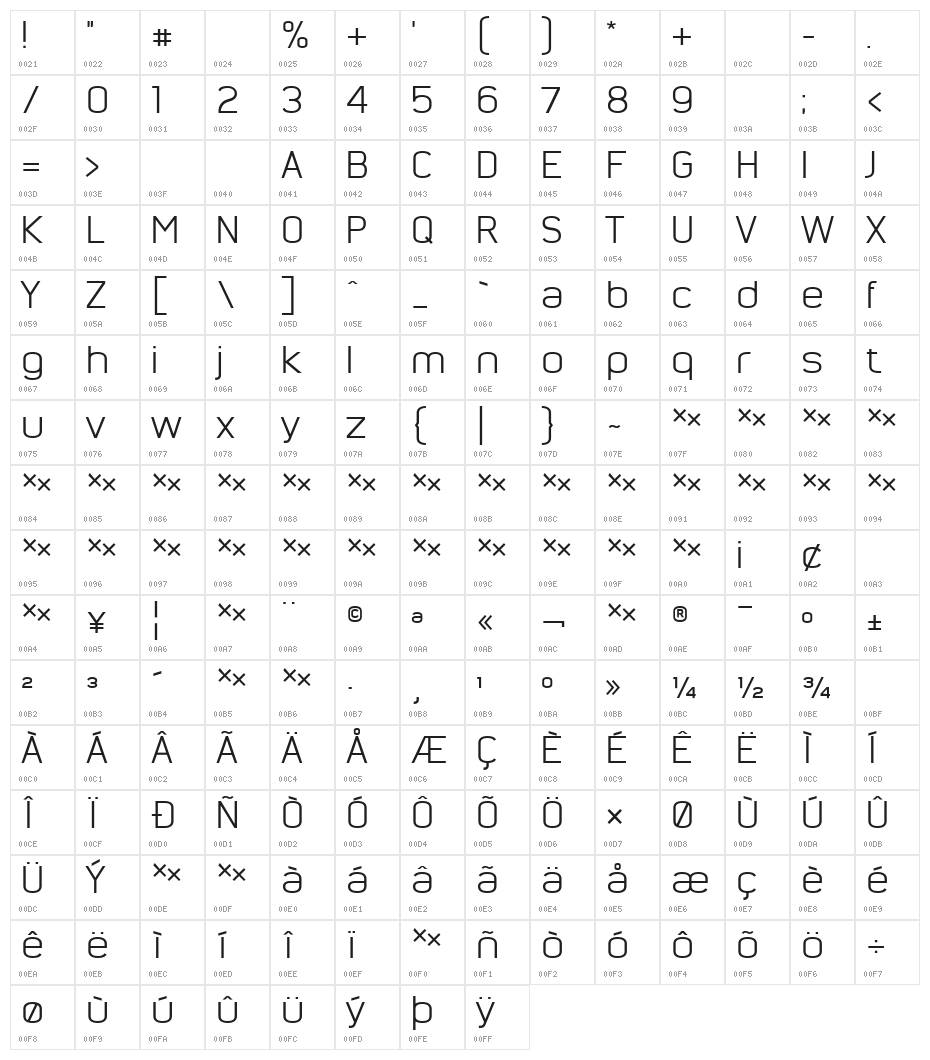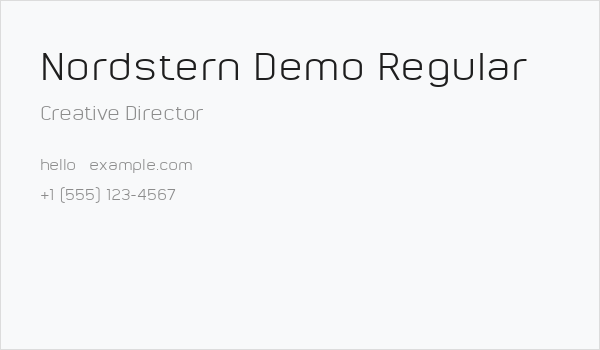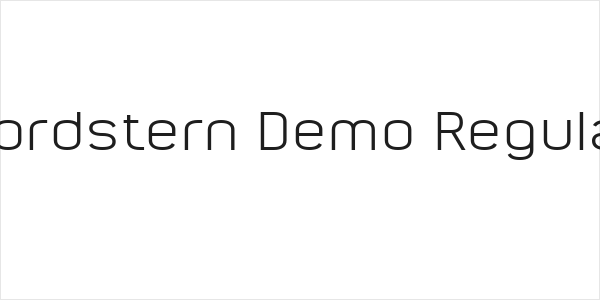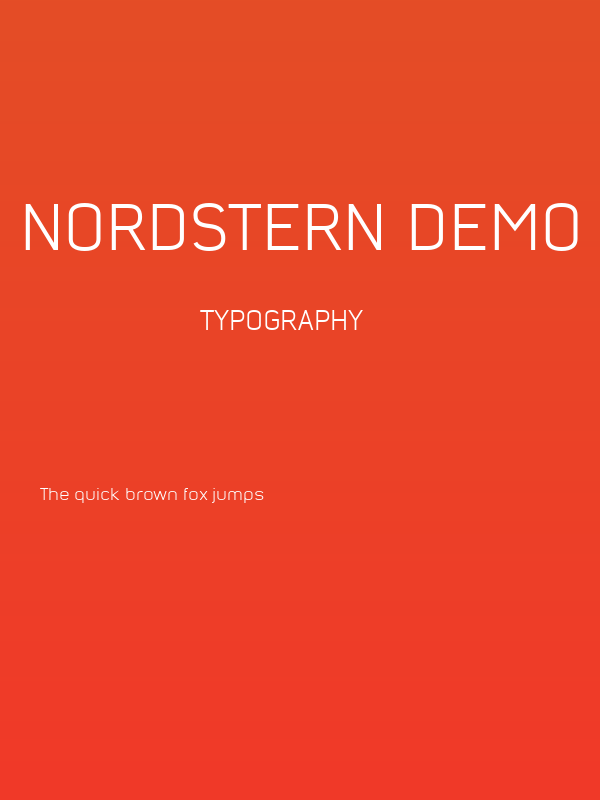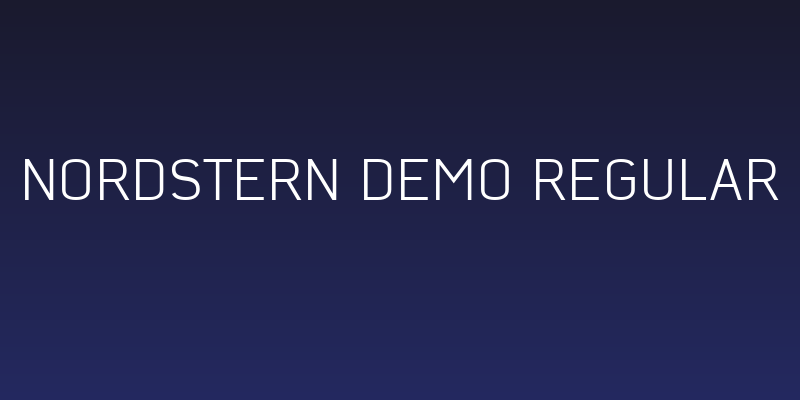
Nordstern Demo Regular Font
Nordstern Demo Regular Description
This font presents a clean and modern aesthetic with a geometric sans-serif style. The characters are uniform and well-balanced, featuring straight lines and smooth curves that create a harmonious appearance. The uppercase letters are bold and assertive, while the lowercase letters maintain a consistent height and width, enhancing readability. The numerals are clear and distinct, making them suitable for various applications. Special characters are designed with precision, maintaining the overall sleek and contemporary look. This font is versatile, suitable for both digital and print media, and can be used in a variety of design projects.
| Proposed Projects | Ideal for branding, web design, editorial layouts, and advertising campaigns. |